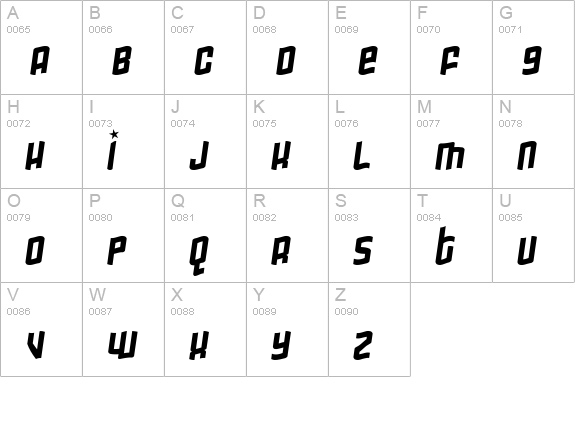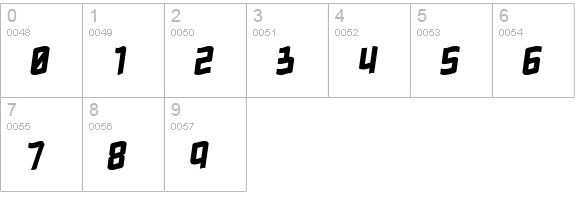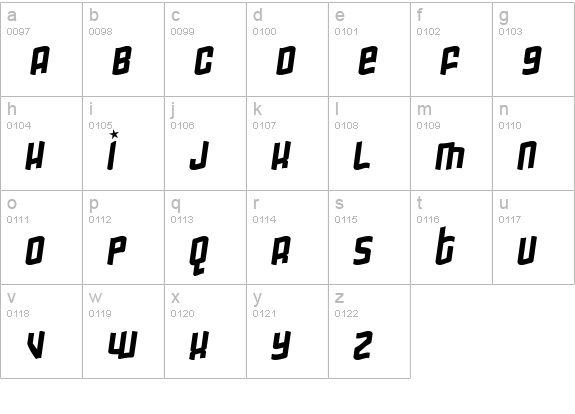
Gimmicky Font Details
Introducing Gimmicky font, a whimsical and playful typeface that adds a touch of fun and creativity to any design project. With its unique and eye-catching characters, Gimmicky font is perfect for adding a quirky and lighthearted feel to your designs. Whether you're working on a poster, greeting card, or social media graphic, this font is sure to stand out and make a statement. Best of all, Gimmicky font is available for free download at FontsMarket.com. Simply visit the website and get your hands on this delightful font to enhance your creative projects. Don't miss out on the opportunity to add a touch of charm and personality to your designs with Gimmicky font - download it today and let your creativity shine!